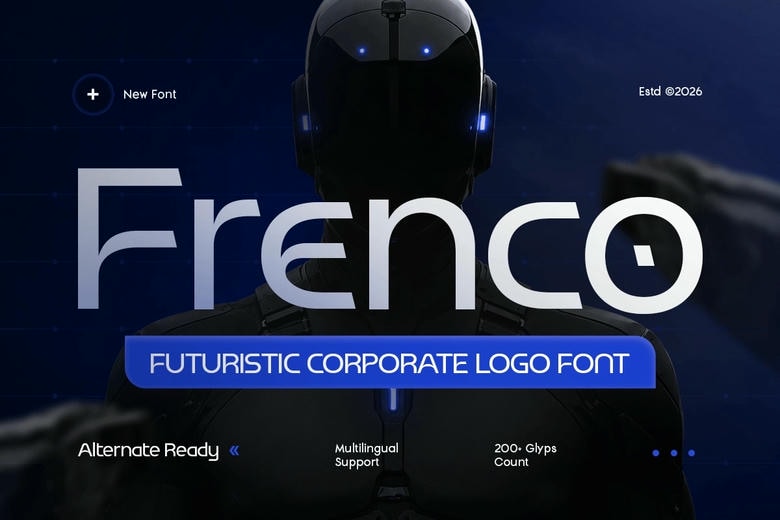
Frenco Font
Frenco is a futuristic logo font made for innovative brands, tech companies, and modern visual identities. Its look takes inspiration from digital spaces and today’s corporate branding, giving it a fresh, modern vibe.
Frenco’s clean lines and modern style make it a great choice for logos, tech branding, startups, gaming visuals, digital products, and promotional materials. Its design helps brands look confident.
Frenco Futuristic Logo Font